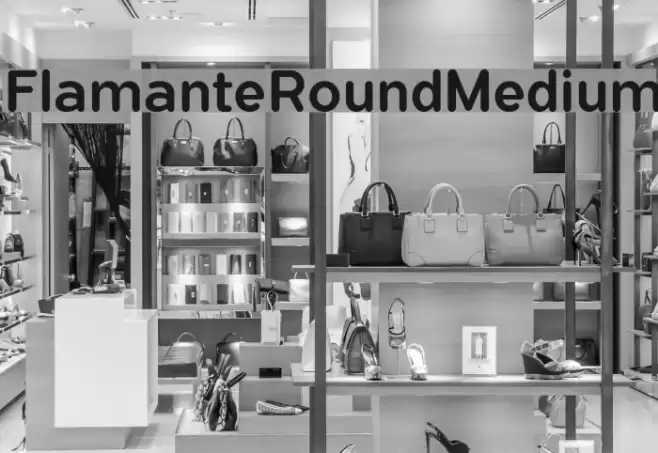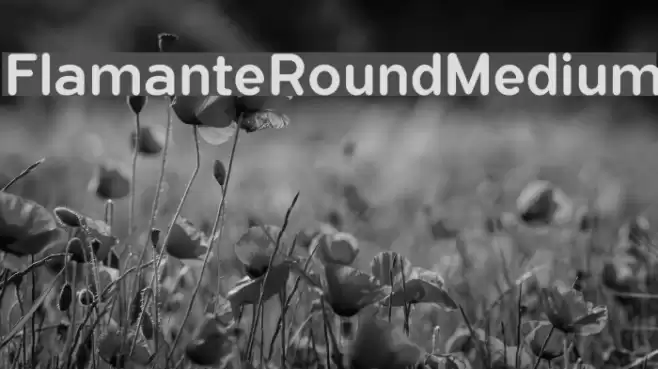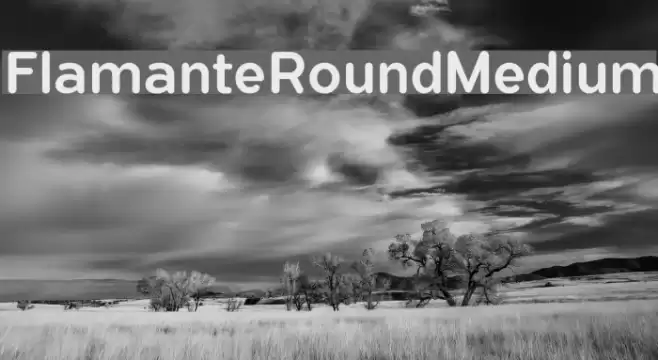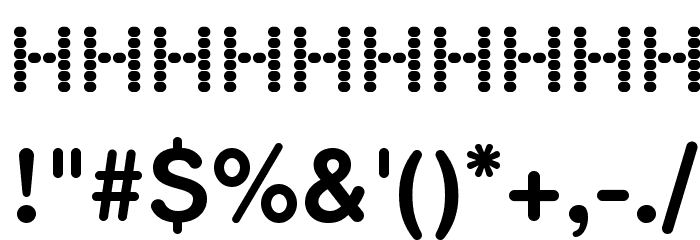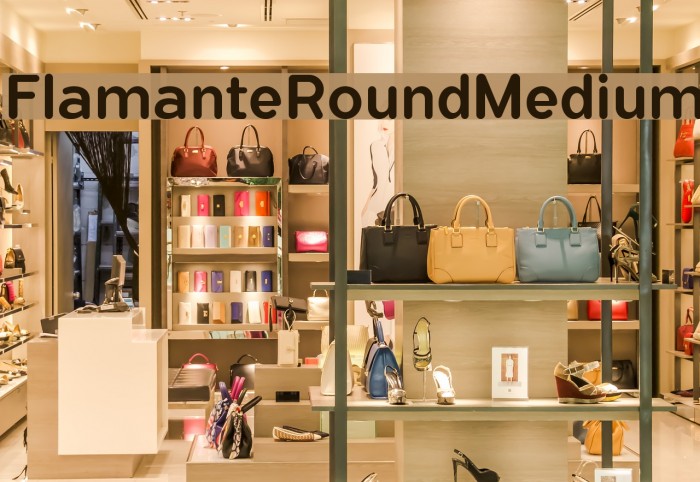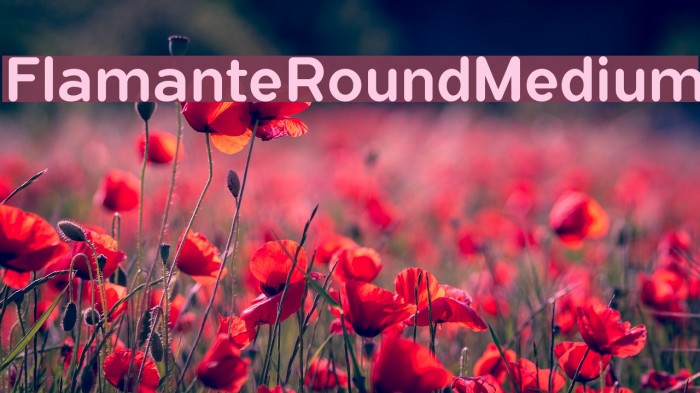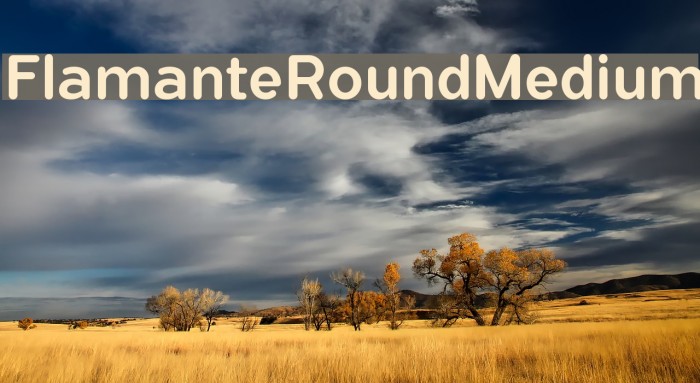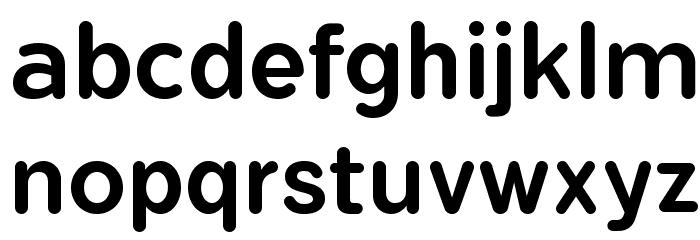
FlamanteRoundMedium Font
FlamanteRoundMedium Description
This font features a clean and modern sans-serif style with rounded edges, giving it a friendly and approachable appearance. The characters are evenly spaced and maintain a consistent weight throughout, contributing to its legibility. The uppercase and lowercase letters are well-proportioned, and the numerals are clear and distinct. Special characters are included, maintaining the same rounded and smooth aesthetic. This font is versatile, suitable for both digital and print media, and can be used in a variety of design contexts.
A modern, rounded sans-serif font with a friendly and approachable style from Uncategorized fonts.
- Proposed Projects: Ideal for branding, web design, user interfaces, and advertising materials.